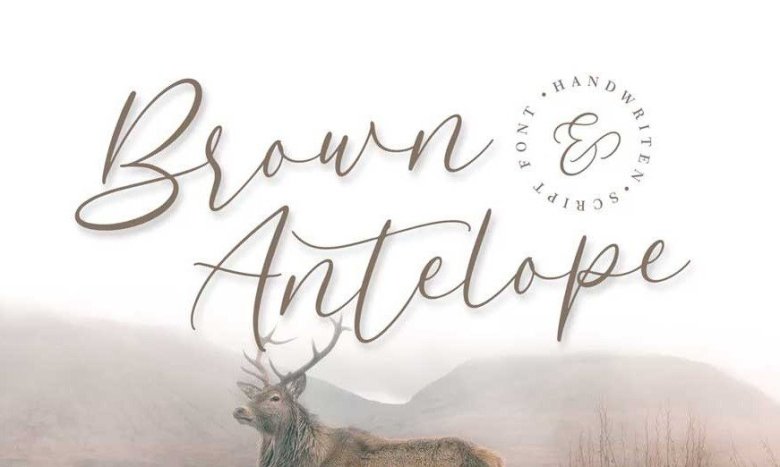
Brown Antelope Script Font
Are you looking for a simple and elegant handwriting font? We can help!
The font is suitable to use for casual purpose.
Try to use it on Wedding invitation, photography, branding and signature to see the best of it.